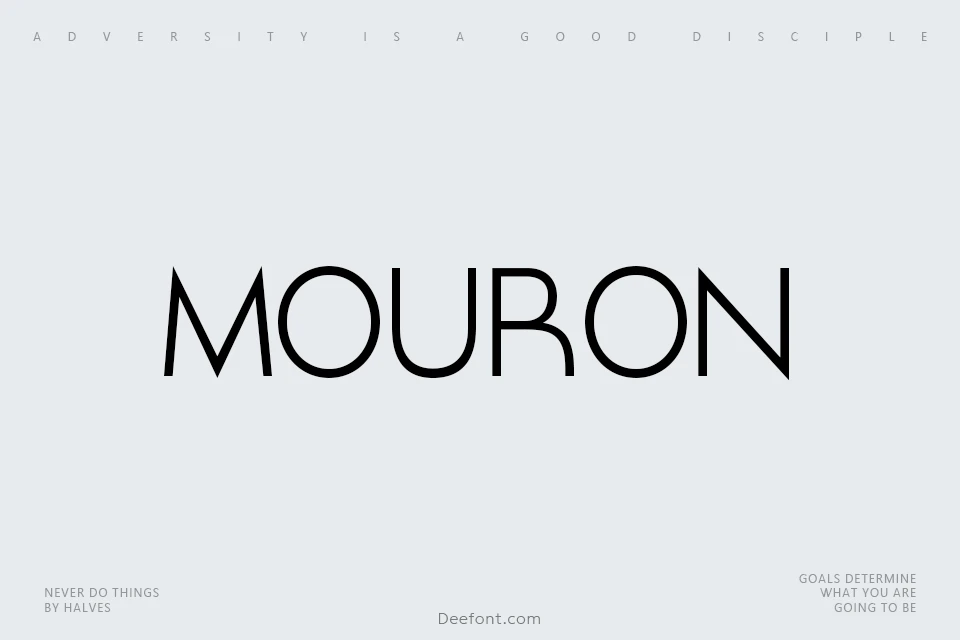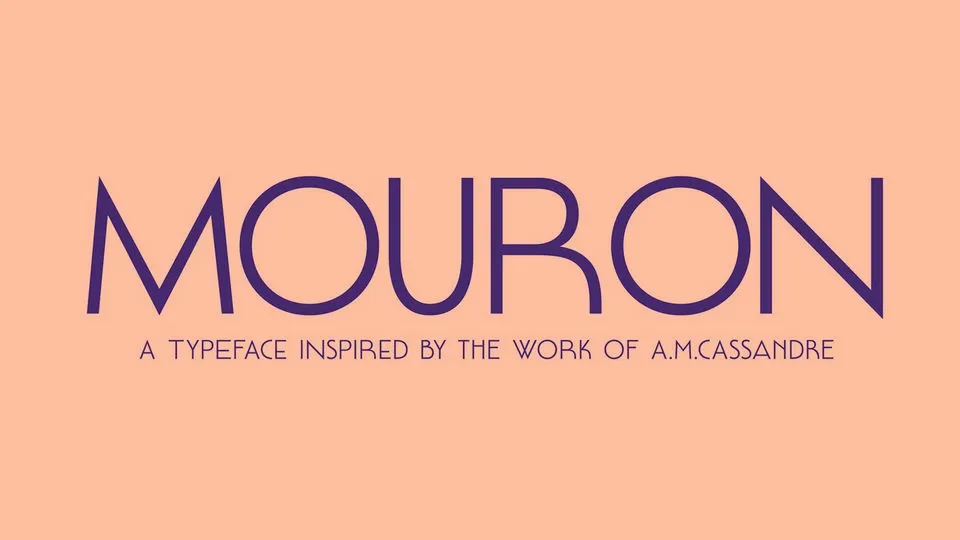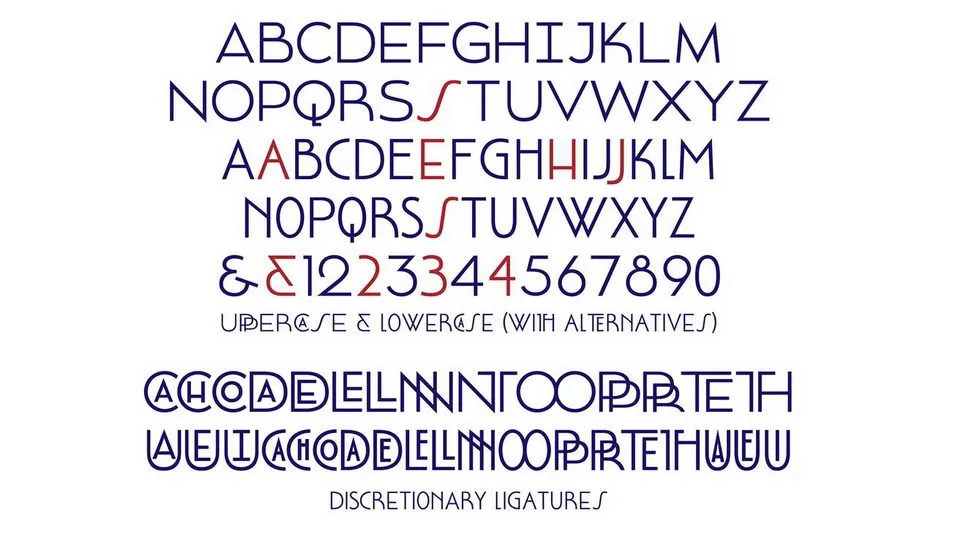
Mouron Typeface
Mouron Typeface is a geometric sans-serif display font inspired by the iconic lettering of A.M. Cassandre, the celebrated French poster artist and type designer. Characterized by its clean lines, art deco influences, and elegant proportions, Mouron Typeface is perfect for headlines, posters, branding, and projects seeking a vintage yet modern aesthetic. The font features a range of alternates and discretionary ligatures, with narrow-width capitals in the lowercase for added versatility and style.